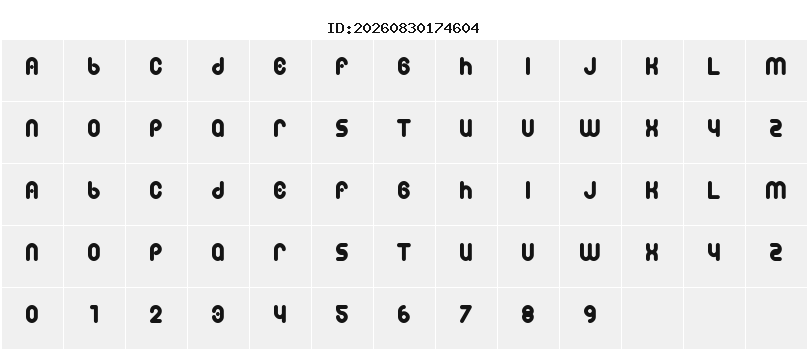
Tesh Preview
• Font Name: Tesh
• Full Font Name: Tesh
• Version: 1.1 by GeN www.dezyne.de
About Tesh.ttf
Tesh.ttf is a modern, elegant sans-serif font designed for ultimate readability and visual harmony. Perfect for branding, headlines, web design, and print materials.